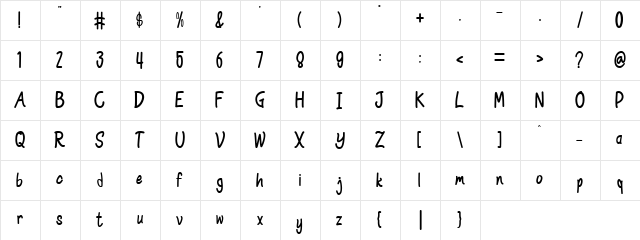
Heavy Rain Regular
Design Context for Heavy Rain Typeface
Heavy Rain is a composed and adaptable typeface that performs quietly and consistently across a wide range of design contexts.
Pro Tip: Use Heavy Rain in both headline and body roles to test its range before committing to a single application.